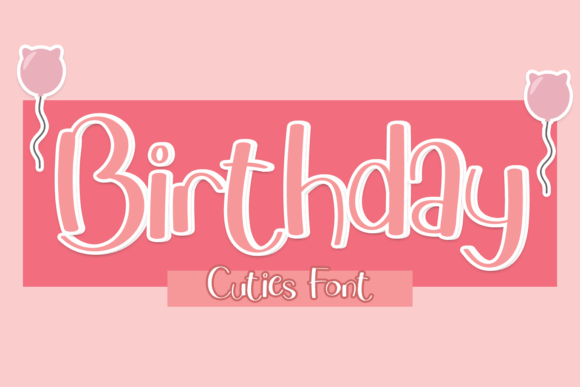
The Birth of a New Favorite: Exploring the Birthday Font
I’ll never forget the time I was working on a birthday party invitation project for a client, and I just couldn’t seem to find the perfect font. I scrolled through page after page of Google Fonts, tried out a dozen different options, but nothing seemed quite right. That was until I stumbled upon the Birthday Font. It was like a breath of fresh air – quirky, chic, and perfect for the job. In this article, I’ll be sharing my experience with this amazing font, and how you can make the most of it in your own design projects.
- ✨ Unique and quirky lettering style that’s sure to make your projects stand out
- ✅ Highly versatile and can be used in a wide range of projects, from party invitations to branding and packaging
- 💫 Beautifully crafted with attention to detail, making it a joy to work with
While I absolutely love the Birthday Font, there are a few things to keep in mind. ⚠️ Some users have reported issues with kerning, particularly when using the font at smaller sizes. Additionally, 🤔 the font doesn’t come with a huge range of weights, which may limit its use in certain projects.
Practical Guide: How to Use the Birthday Font
The Story Behind the Birthday Font
The Birthday Font was designed by a talented type designer who wanted to create a font that would capture the fun, playful spirit of birthday celebrations. With its quirky lettering style and elegant lines, the font has quickly become a favorite among designers and crafters alike.